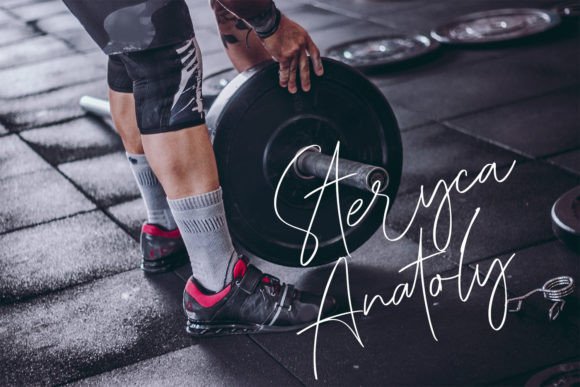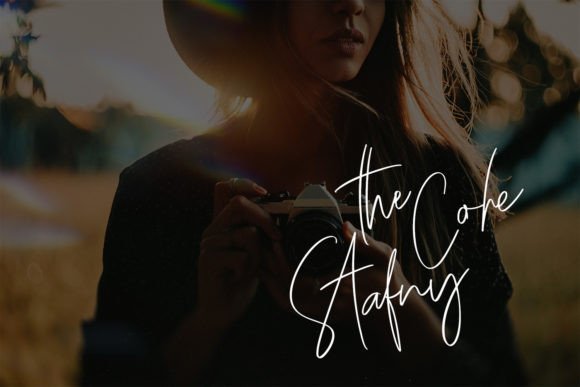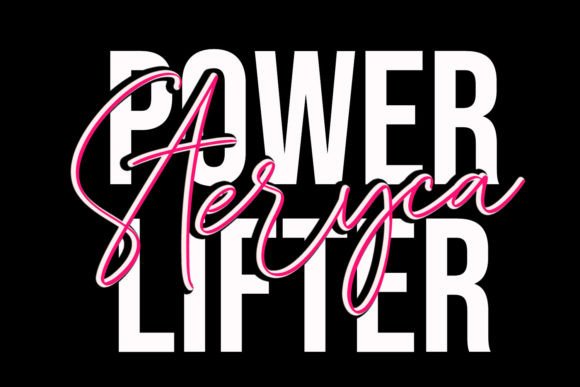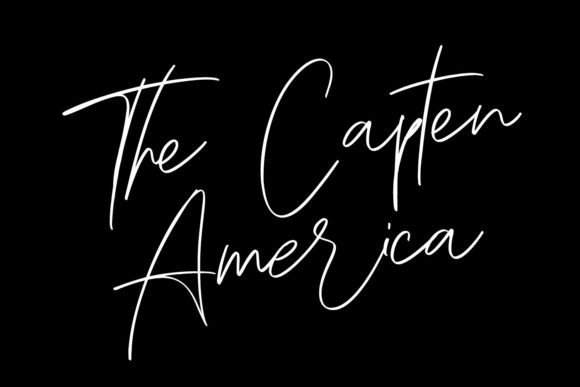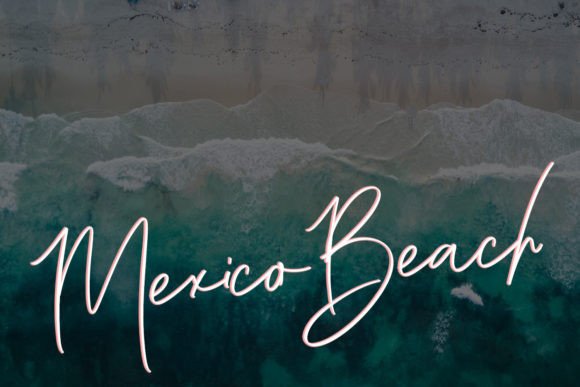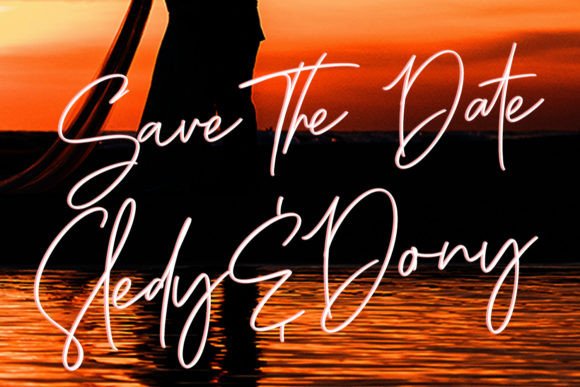
Introduction to Slecter Cirus Font
Slecter Cirus monoline script font.
This font is good for logo design, Social media, Movie Titles, Books Titles, a short text even a long text letter and good for your secondary text font with signature or script typeface Make a stunning work with Slecter Cirus font.
Key Features of Slecter Cirus Font
Why Choose Slecter Cirus Font?
Slecter Cirus Font offers exceptional quality and versatility, making it a valuable addition to your design toolkit. Whether you’re creating for personal projects or commercial use, Slecter Cirus Font delivers professional results.